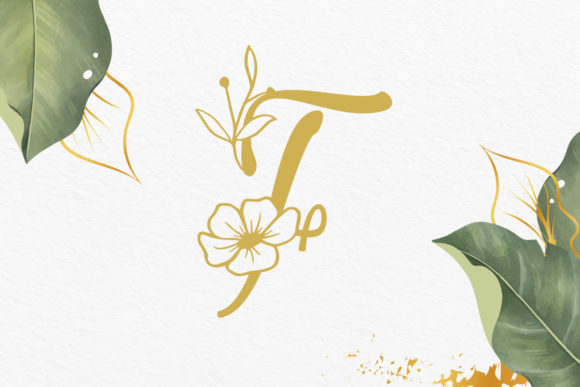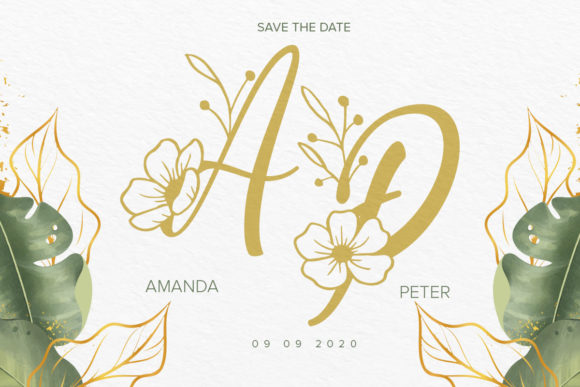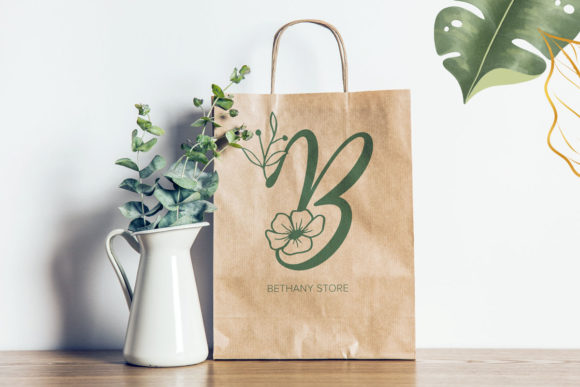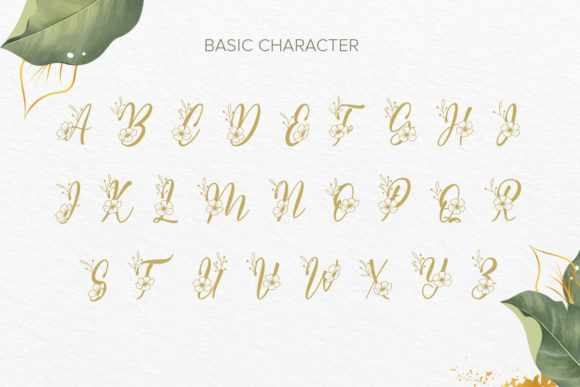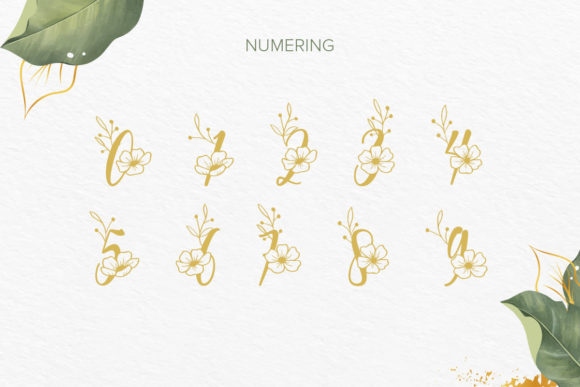
Dellina Monogram Font: A Flowing and Relaxed Decorative Font for Your Creative Projects
Are you a designer or crafter looking for a unique and elegant font to add a personal touch to your creations? Look no further than the Dellina Monogram Font. This beautiful, flowing script font is perfect for a wide range of design projects, from wedding invitations and branding materials to craft patterns and digital art.
What is Dellina Monogram Font?
Dellina Monogram is a decorative font that features sweet and delicate flowers, giving it a natural and unique style. The font is designed to be flowing and relaxed, making it perfect for creating beautiful, hand-drawn designs. With its elegant and sophisticated look, Dellina Monogram is sure to add a touch of class to any design project.
Key Features of Dellina Monogram Font
- Flowing and Relaxed Design: Dellina Monogram features a flowing and relaxed design that gives it a natural and effortless look.
- Sweet and Delicate Flowers: The font features beautiful, delicate flowers that add a touch of elegance and sophistication to any design.
- Unique and Versatile: Dellina Monogram is incredibly versatile and can be used for a wide range of design projects, from wedding invitations to craft patterns.
- Easy to Read: Despite its decorative nature, Dellina Monogram is easy to read and can be used for both headings and body text.
Uses for Dellina Monogram Font
The possibilities are endless when it comes to using Dellina Monogram Font. Here are just a few ideas to get you started:
- Wedding Invitations: Dellina Monogram is perfect for creating beautiful, custom wedding invitations that set the tone for a special day.
- Branding Materials: Use Dellina Monogram to create elegant and sophisticated branding materials, such as logos, business cards, and letterheads.
- Craft Patterns: Dellina Monogram is a great choice for craft patterns, such as knitting or crochet patterns, that require a decorative touch.
- Digital Art: Use Dellina Monogram to add a personal touch to your digital art, such as illustrations, graphics, and typography.
Why Choose Dellina Monogram Font?
There are many decorative fonts available, but Dellina Monogram stands out from the crowd. Here are just a few reasons why:
- Unique Style: Dellina Monogram features a unique and distinctive style that sets it apart from other decorative fonts.
- High-Quality Design: The font is designed to be high-quality and easy to read, making it perfect for both print and digital projects.
- Versatility: Dellina Monogram is incredibly versatile and can be used for a wide range of design projects.
- Elegant and Sophisticated: The font features an elegant and sophisticated look that is sure to add a touch of class to any design project.
| Author | Monogram Lovers |
If you’re looking for a beautiful and unique decorative font for your design projects, look no further than Dellina Monogram Font. With its flowing and relaxed design, sweet and delicate flowers, and versatile style, Dellina Monogram is the perfect choice for designers and crafters. Whether you’re creating wedding invitations, branding materials, craft patterns, or digital art, Dellina Monogram is sure to add a touch of elegance and sophistication to your creations.